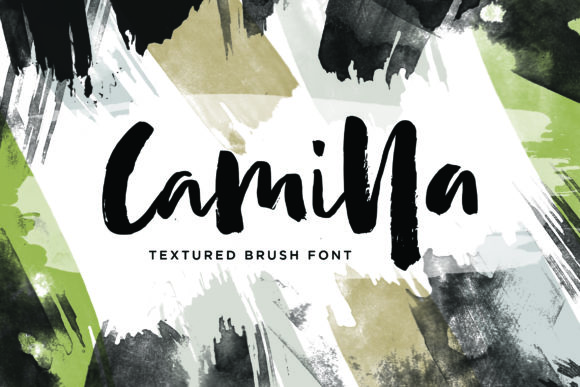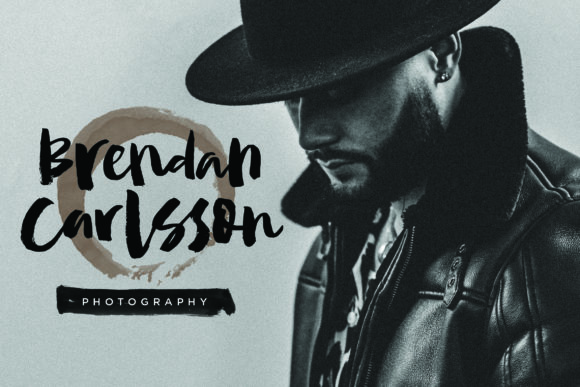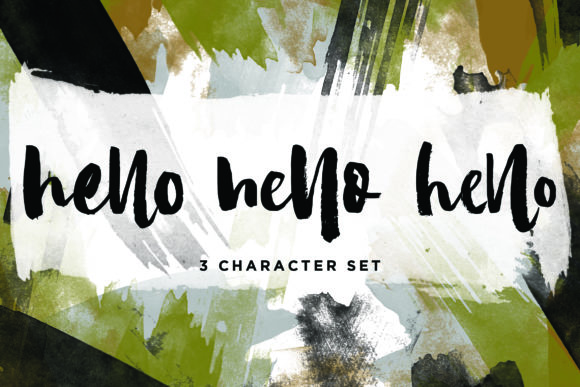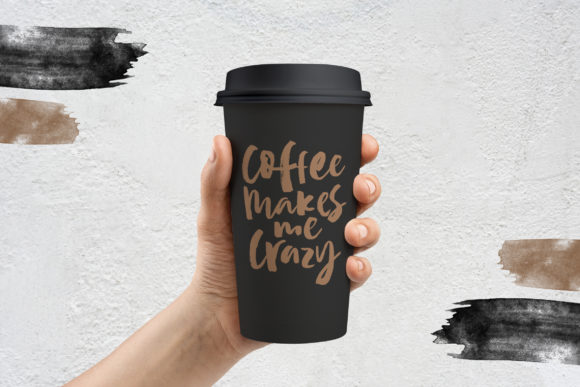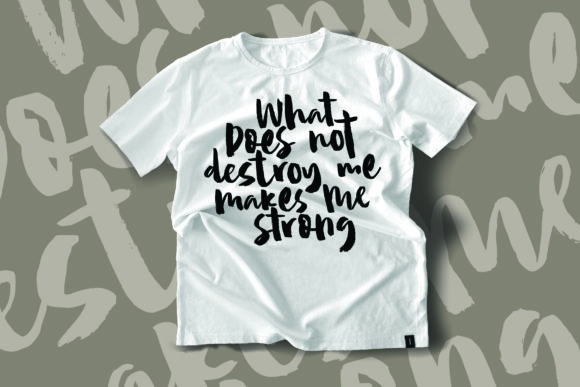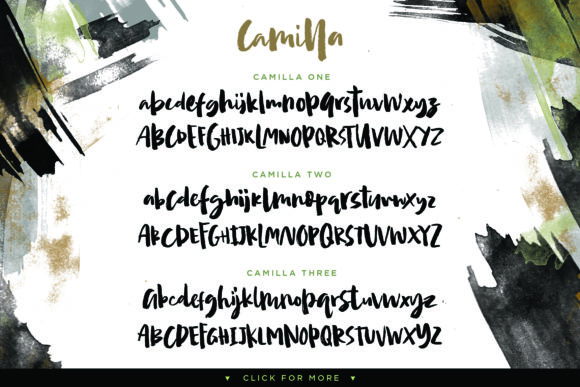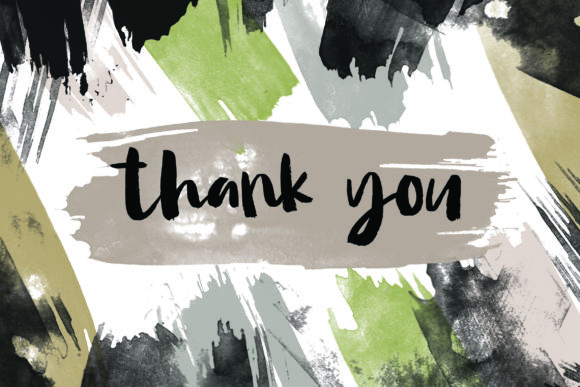
Camilla Font
About Camilla Font
Camilla is a charming and cool handwritten font with a modern feel. It’s the perfect font for adding a lovely twist to any inspirational crafts projects!